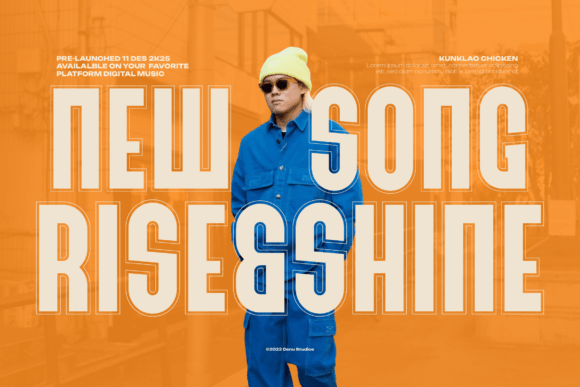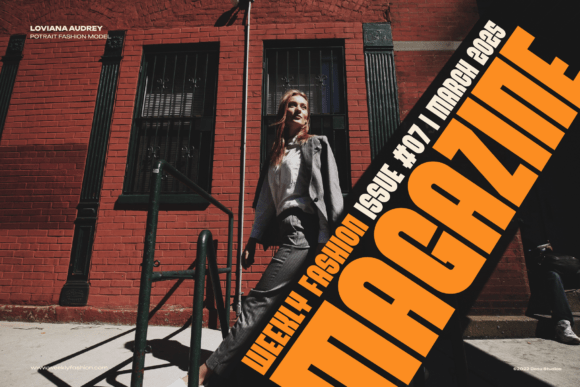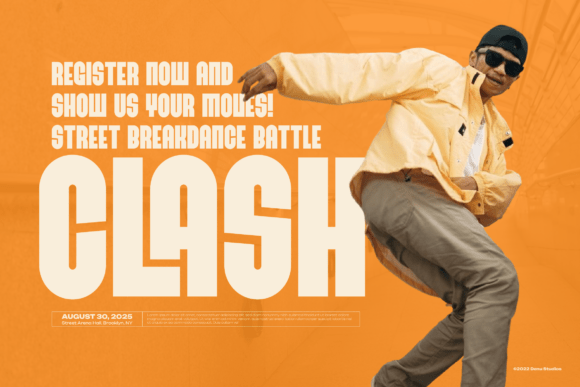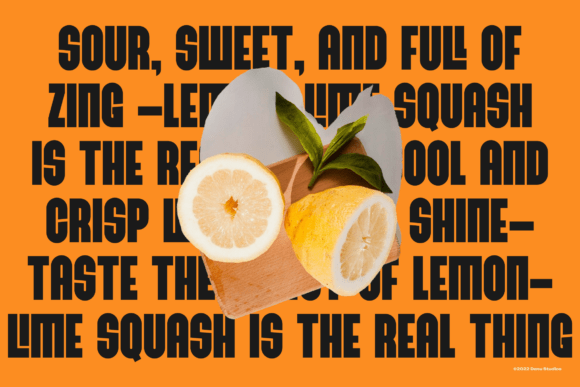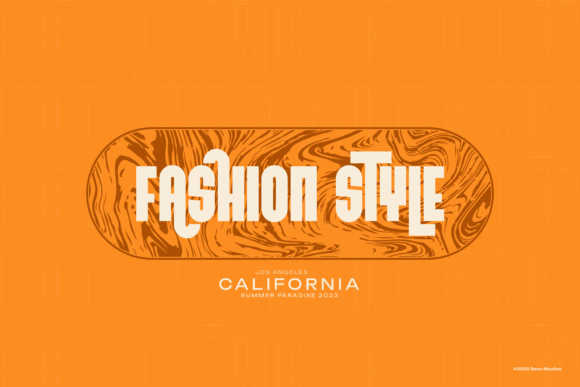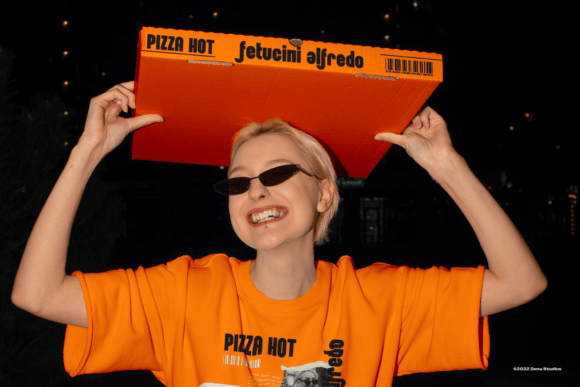
The Glanuler Font: A Bold and Futuristic Sans Serif for Creative Projects
I’ll never forget the time I was working on a branding project for a tech startup, and I was struggling to find the perfect font to capture their futuristic and innovative vibe. The client wanted something bold, modern, and attention-grabbing, but I was coming up blank. That’s when I stumbled upon the Glanuler font, and it instantly clicked. With its structured lines, futuristic curves, and high-impact letterforms, it was exactly what I needed to bring the brand to life.
An Honest Review of Glanuler
- ✨ Unique Ligatures: Glanuler features a range of unique ligatures that add a touch of sophistication to any design project.
- ✅ Modern Aesthetic: The font’s modern aesthetic makes it perfect for tech projects, fashion-forward visuals, and editorial headlines.
- 💡 High-Impact Letterforms: Glanuler’s bold and futuristic letterforms are designed to command attention and make a lasting impression.
- 📚 Over 280 Glyphs: With a vast range of glyphs, you can experiment with different styles and variations to find the perfect fit for your project.
While Glanuler is an amazing font, there are a few quirks to be aware of:
- 🤔 Legibility at Small Sizes: While Glanuler is designed for display purposes, it can be a bit tricky to read at smaller sizes. Make sure to test it in different contexts to ensure it’s legible.
- ⚠️ Limited Use in Body Text: Due to its bold and futuristic design, Glanuler may not be the best choice for body text. Stick to headings, titles, and captions for maximum impact.
- Experiment with OpenType features, such as ligatures and stylistic alternates, to add visual interest to your design.
The Story Behind Glanuler
Glanuler was designed with the goal of creating a bold and futuristic sans serif font that would make a statement. Inspired by the intersection of technology and art, the designer aimed to craft a font that would be both modern and timeless. With its unique ligatures and high-impact letterforms, Glanuler is the perfect choice for designers looking to add a touch of sophistication to their projects.
Q: What is Glanuler font best used for?
A: Glanuler is perfect for branding, editorial headlines, tech projects, and fashion-forward visuals.
Q: Can I use Glanuler for body text?
A: While Glanuler is designed for display purposes, it’s not recommended for body text due to its bold and futuristic design.